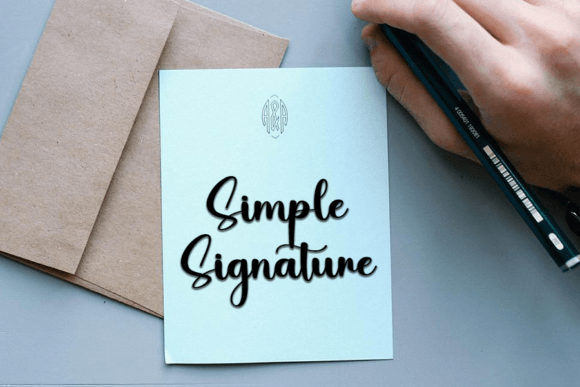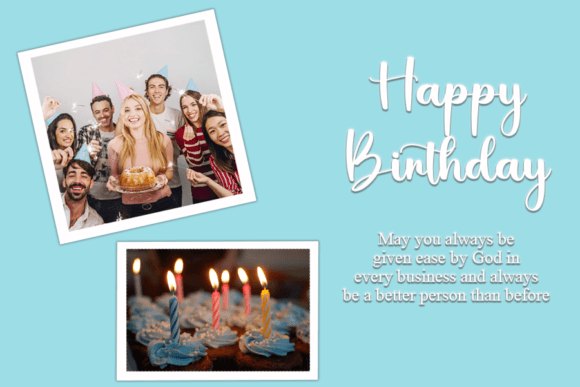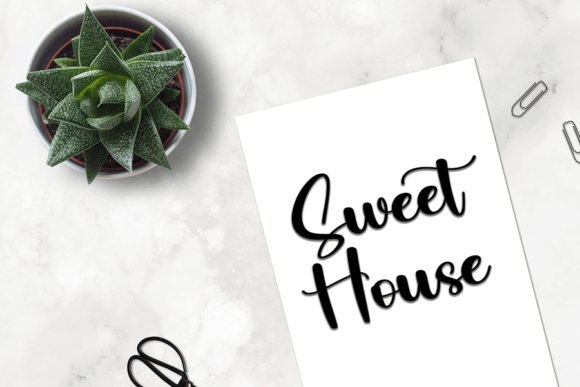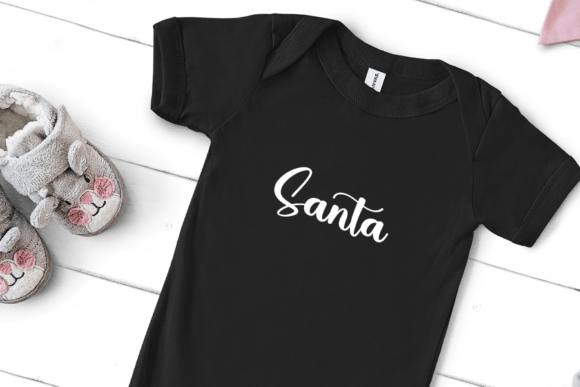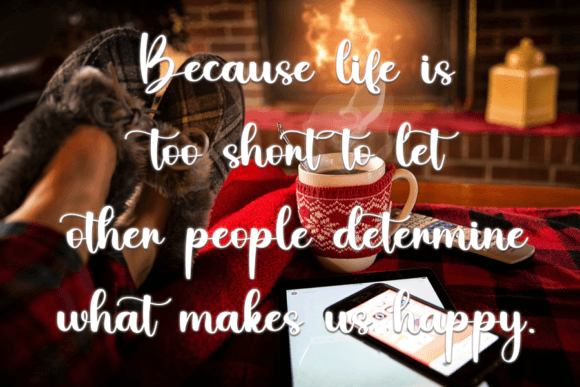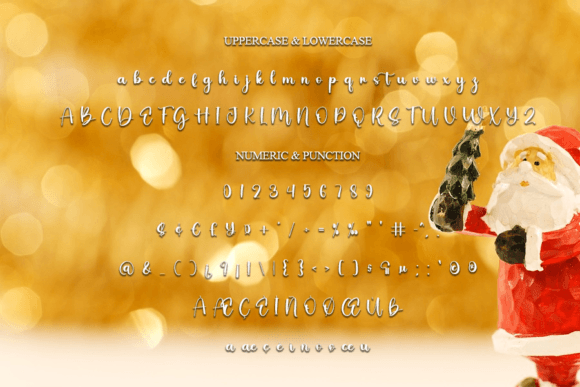
The Magic of Hello Santa Font: A Designer’s Dream Come True
Have you ever found yourself in the midst of a creative flurry, brainstorming ideas for a holiday card or gift tag, only to be struck by the perfect font – one that screams joy, festivity, and love? That’s exactly what happened to many designers when they discovered the Hello Santa Font.
This stunning script font is more than just a pretty face; it’s a versatile tool that can elevate any design project, from digital presentations to handmade crafts. With its bold, gorgeous strokes, Hello Santa Font is the perfect choice for anyone looking to add a touch of whimsy and personality to their work.
Whether you’re a seasoned designer or a DIY enthusiast, the Hello Santa Font is an invaluable addition to your creative toolkit, offering endless possibilities for creative expression and visual storytelling.
Hello Santa Font Key Features
- Unique Characteristics: Hello Santa Font features a playful, handwritten style with a mix of bold and cursive elements, perfect for adding a festive touch to holiday designs.
Hello Santa Font Review
Overall, I’m impressed with the festive and fun vibe of the Hello Santa Font. ✨ It’s perfect for holiday-themed projects, from Christmas cards to gift tags. The font’s playful feel adds a touch of whimsy and makes it suitable for children’s content.
The font’s key features include:
- Unique, hand-drawn style that captures the spirit of the holiday season
- Wide range of weights and styles, making it versatile for various design applications
However, there are a few limitations to consider: ⚠️ The font may not be suitable for formal or professional designs, as its playful style can come across as unprofessional. Additionally, some users may find the font’s hand-drawn feel to be inconsistent or difficult to read at certain sizes.
Overall, I think the Hello Santa Font is a great choice for holiday-themed designs. While it may not be suitable for all design applications, its unique style and versatility make it a great addition to any designer’s toolkit.
Hello Santa Font is commonly used for:
- Christmas-themed designs and projects.
- Winter-themed graphics and illustrations.
To get the most out of Hello Santa Font, try:
- Pairing it with bold or italic fonts for contrast.
- Using it in combination with festive colors and graphics.
- Experimenting with different font sizes and styles to create a unique look.
Alternatives to Hello Santa Font
Bebas Neue is a modern sans-serif font that is perfect for creating a bold and festive atmosphere. It is a great alternative to Hello Santa Font for designers who want a more contemporary look. Bebas Neue is highly legible and can be used for a wide range of applications, from headings to body text. Compared to Hello Santa Font, Bebas Neue has a more minimalist and clean design.
Great Vibes is a beautiful, elegant script font that is ideal for creating a warm and inviting atmosphere. It is a great alternative to Hello Santa Font for designers who want to add a touch of sophistication to their designs. Great Vibes is highly versatile and can be used for a variety of applications, from headings to titles. Compared to Hello Santa Font, Great Vibes has a more refined and luxurious feel.